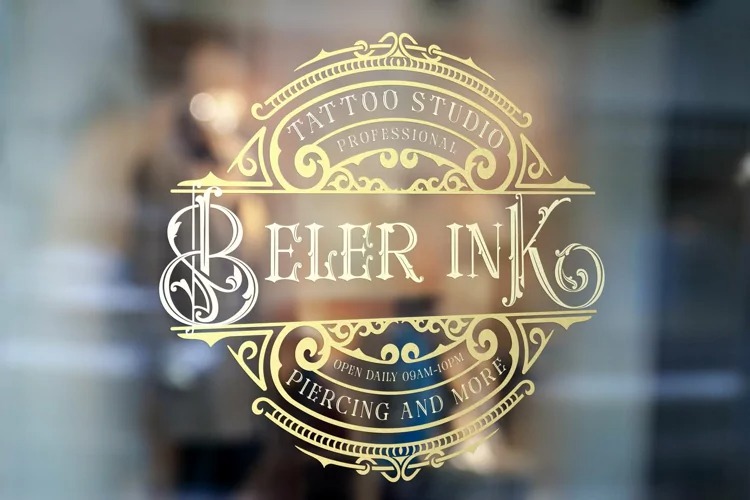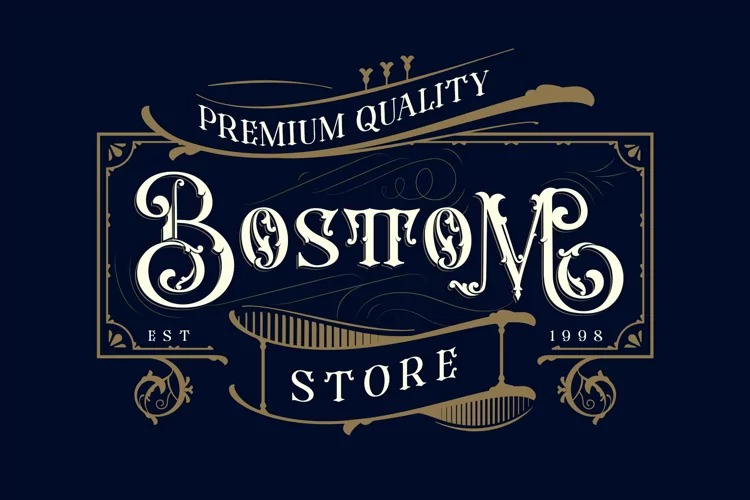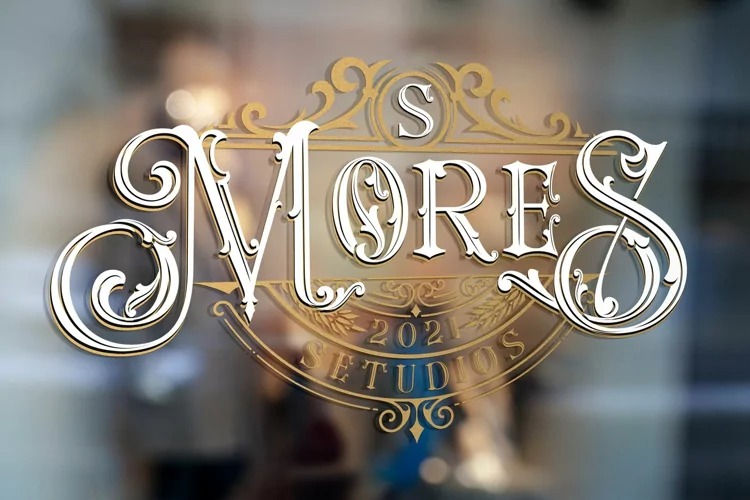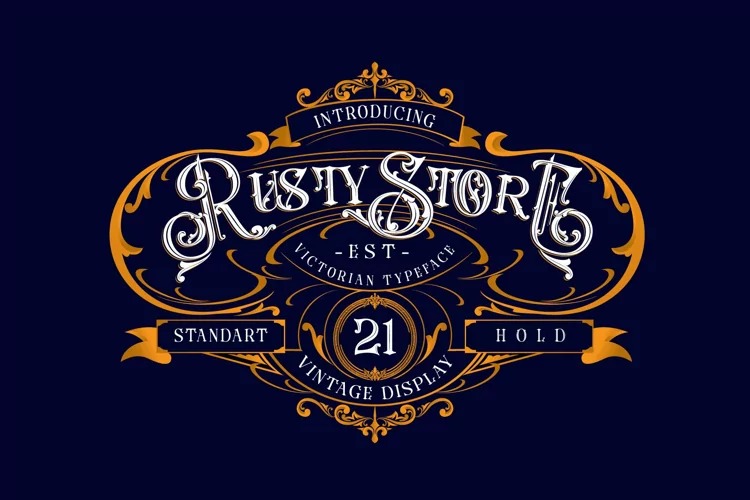
Rusty Store Font
Rusty Store Blackletter Font
This font designed by Alit Suarnegara is a typeface which is inspired by vintage lettering sign and art. The details of the “Rusty Store” shape are very subtle and flow creating unique and gorgeous curves. Elegant serif like “Rusty Store” are very easy to apply to any design, especially those with an elegant and smooth concept, apart from that this font is very easy to use in both design and non-design programs because all alternates and glyphs are supported by Unicode (PUA).